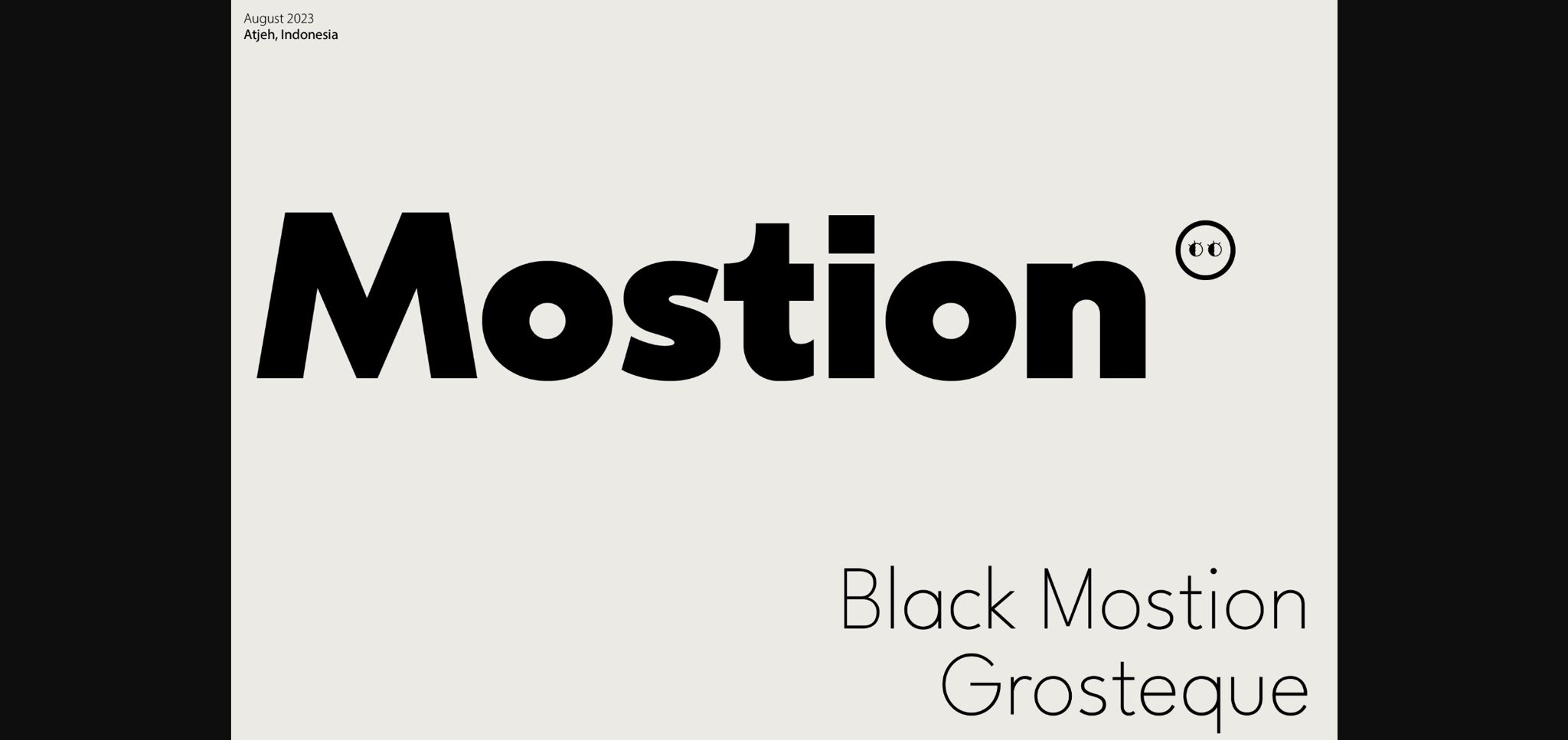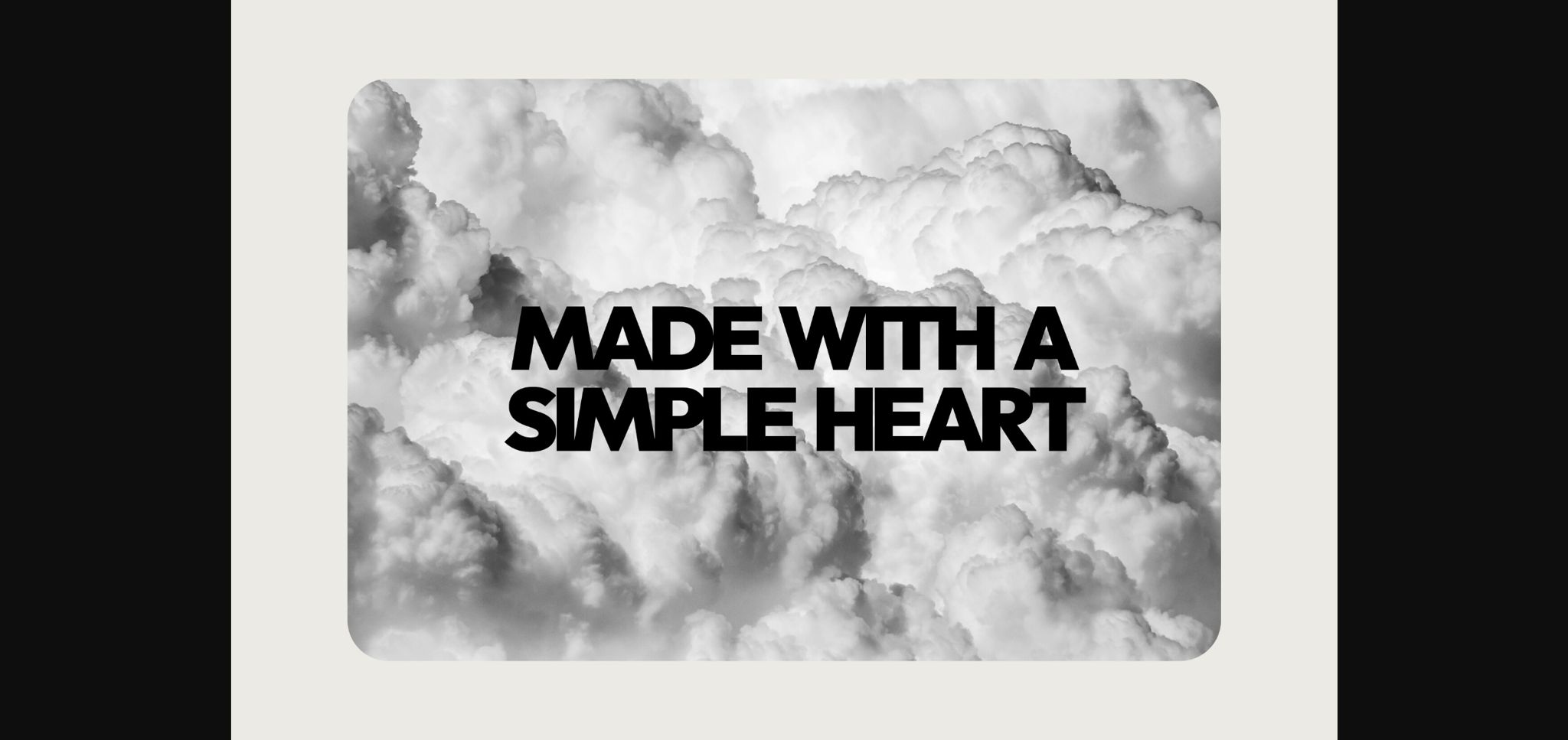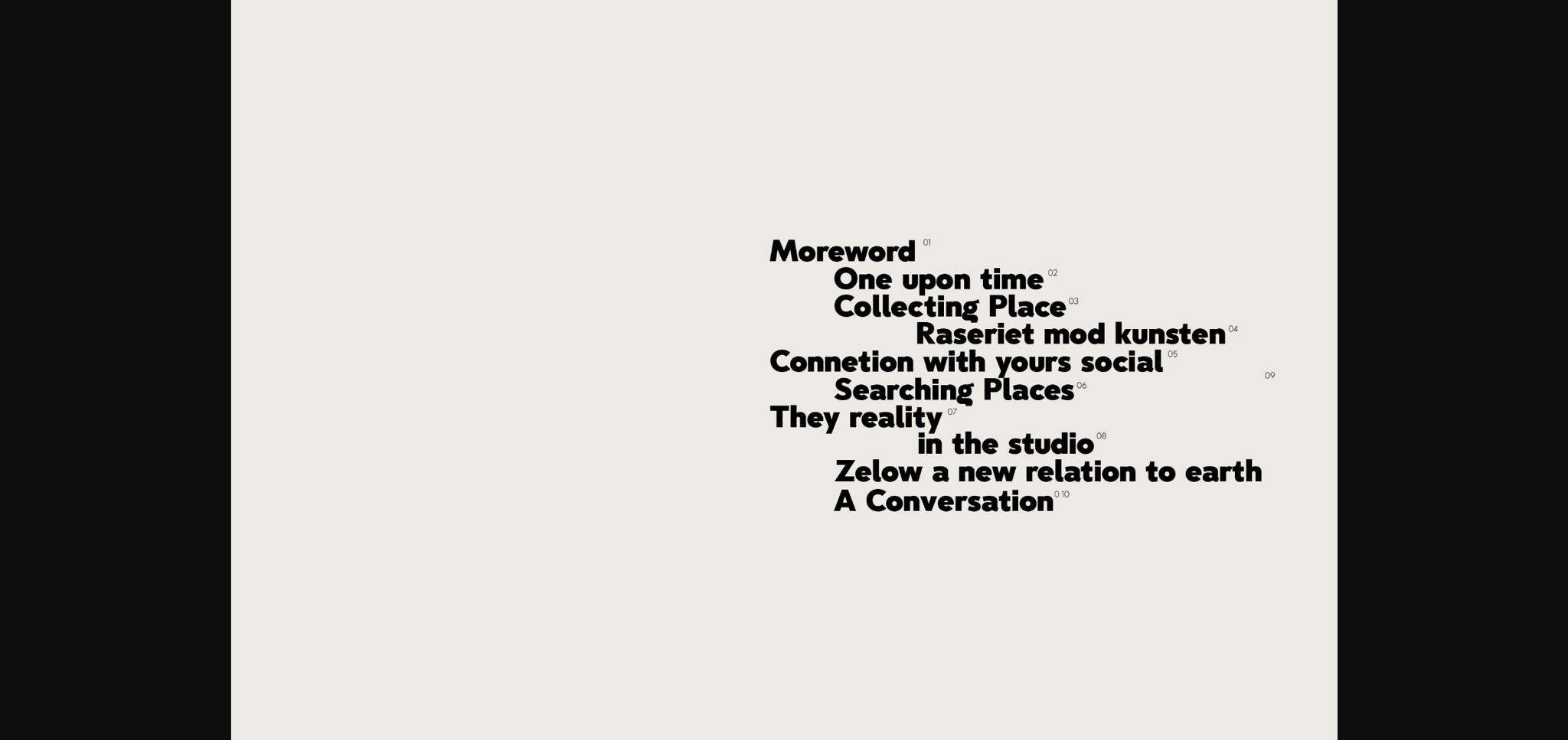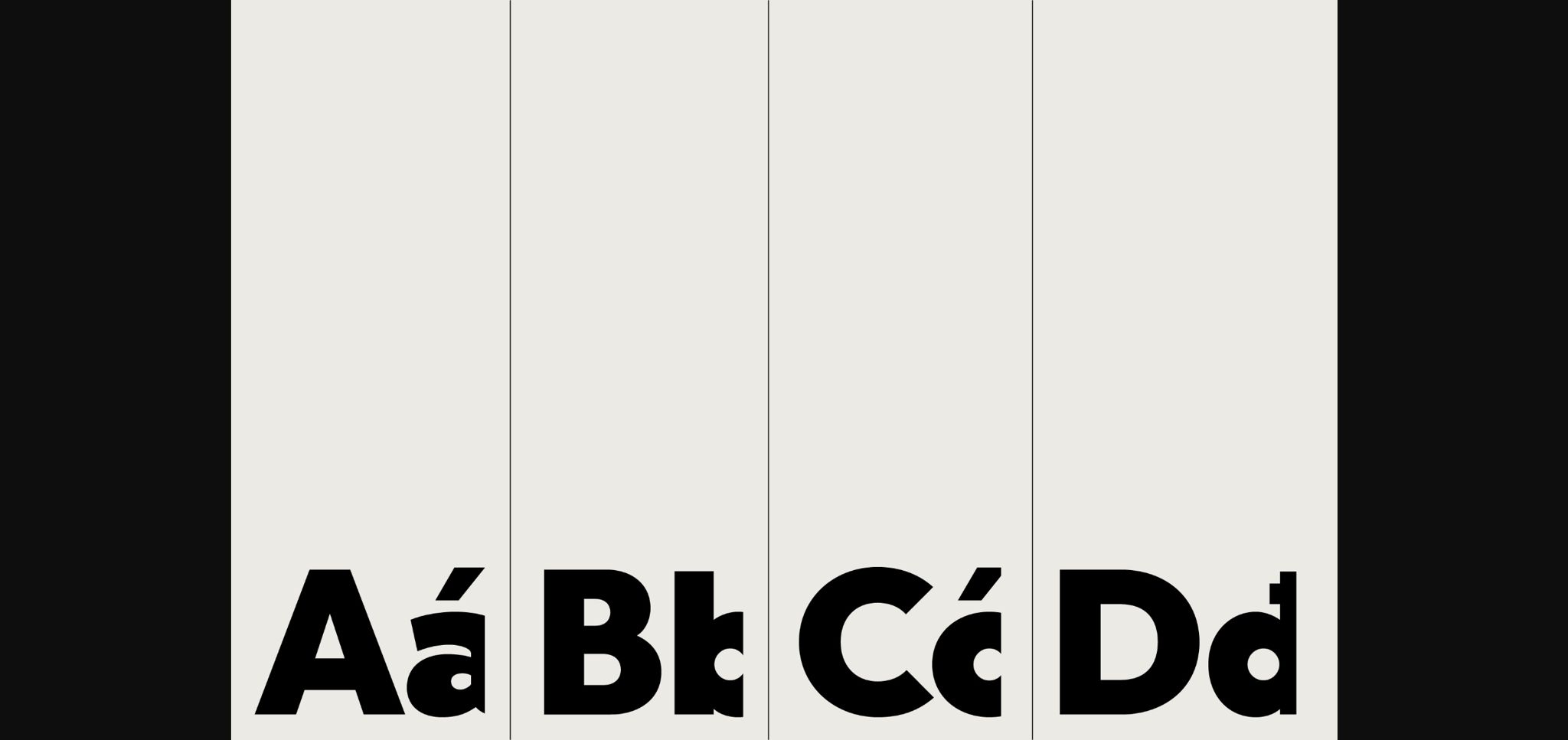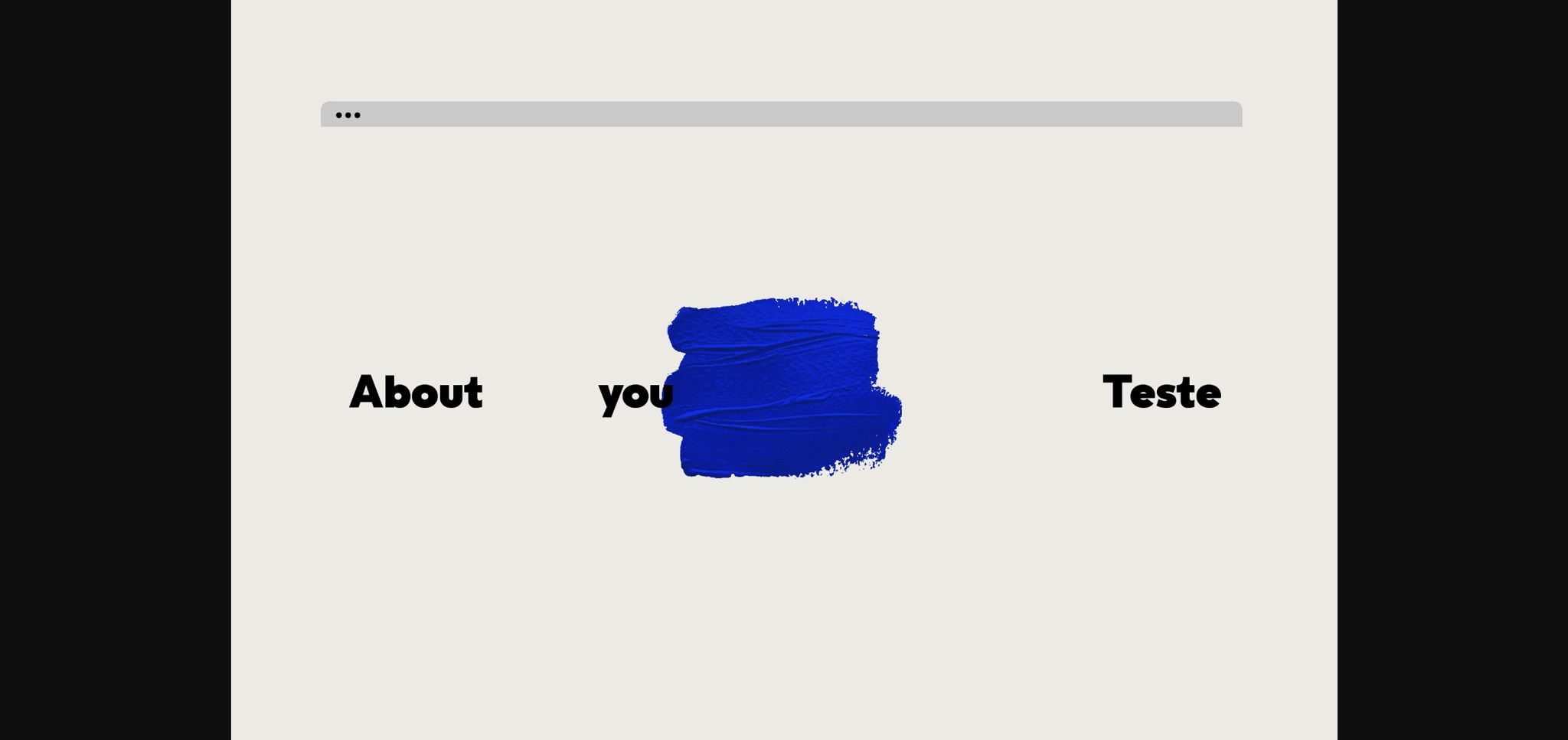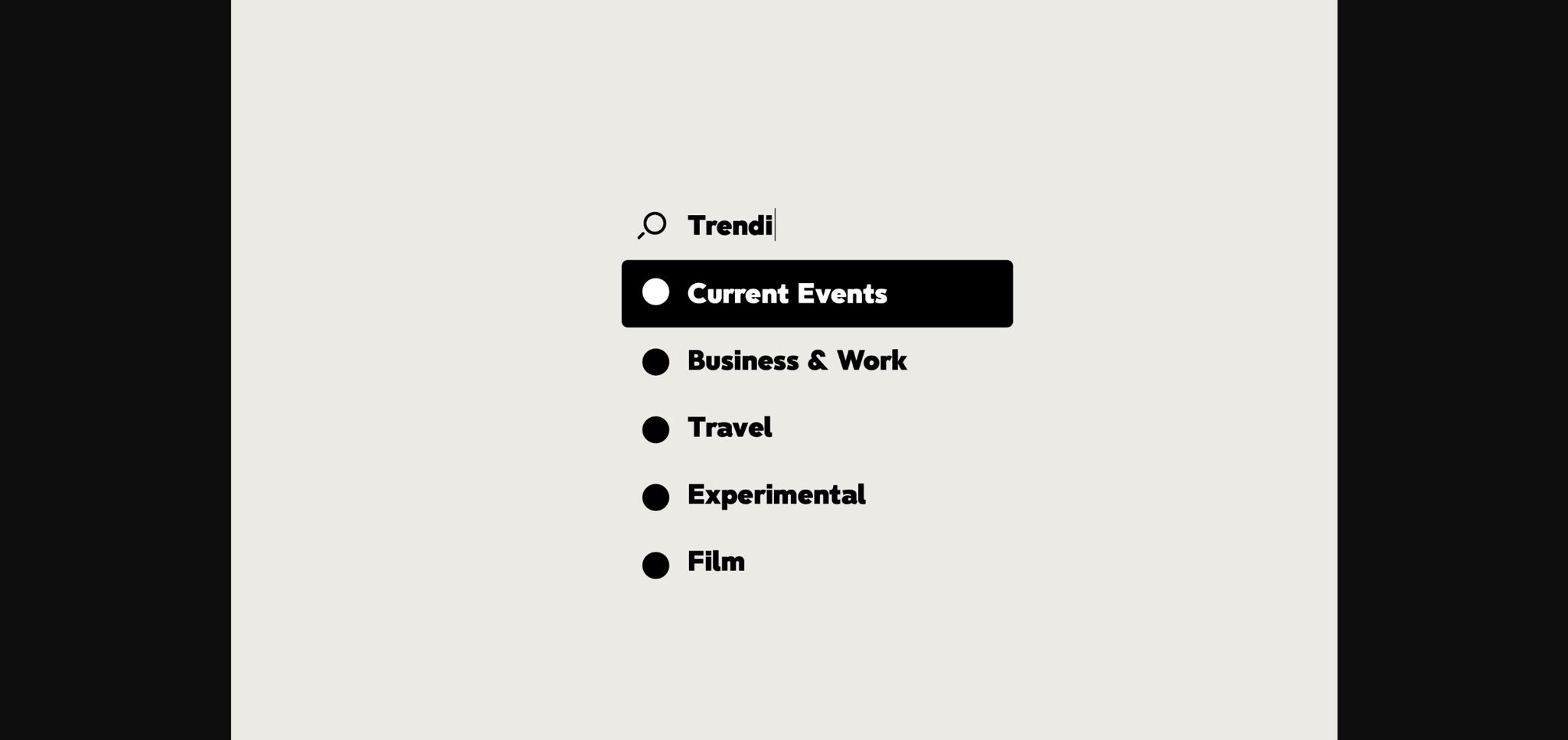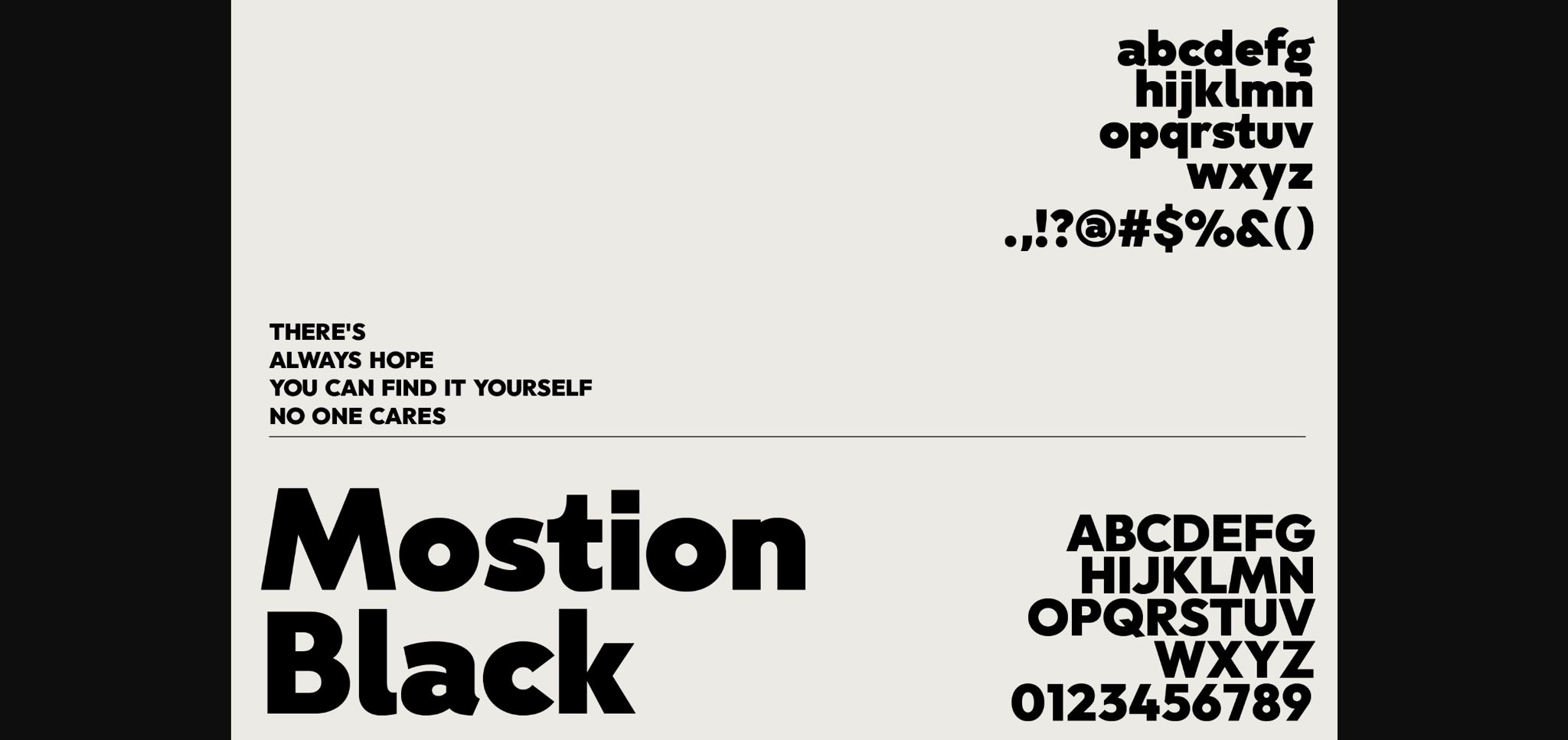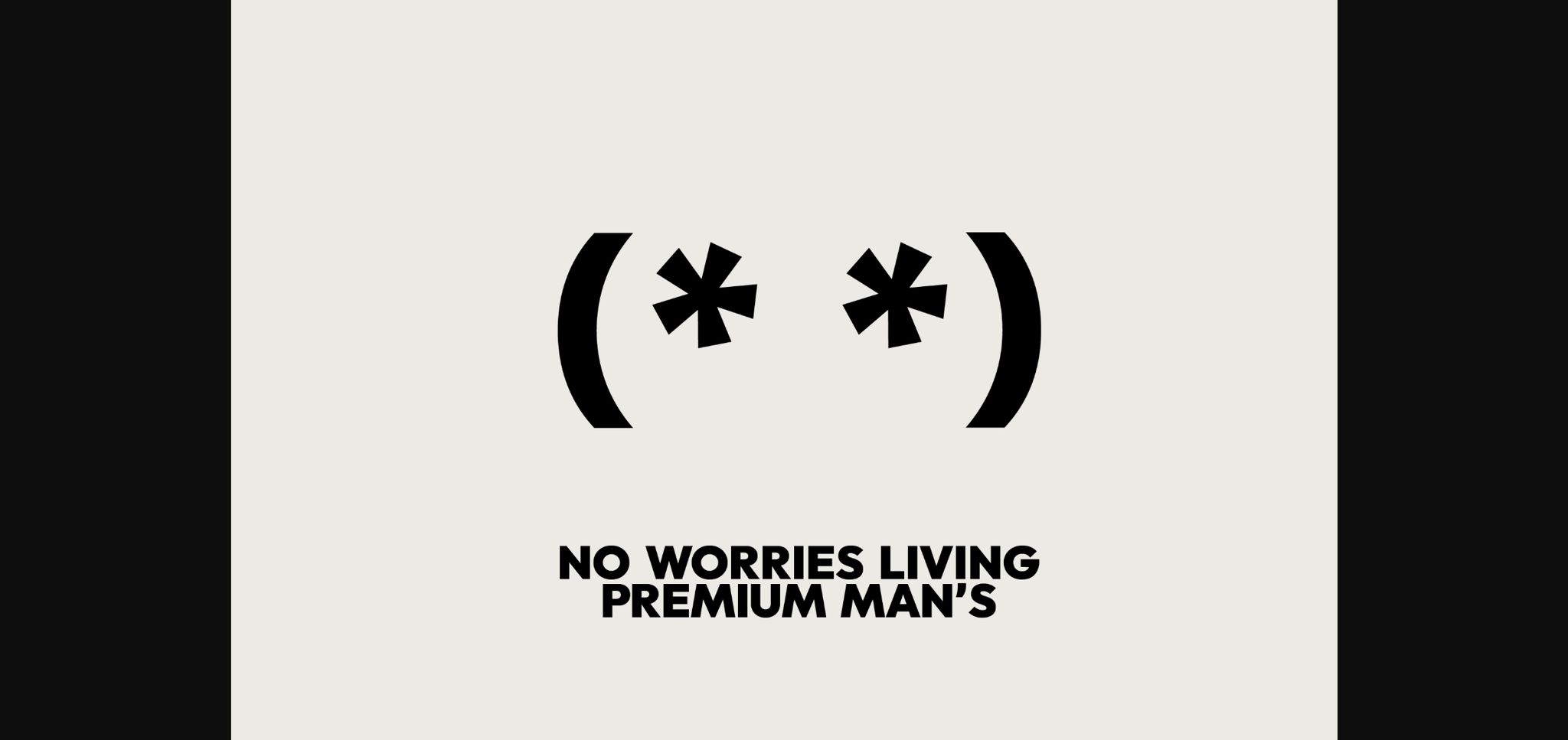
Mostion Font
About Mostion Font
Introducing Monstion, a fusion of sans and grotesque styles, both in bold weight, radiating an essence of simplicity and modernism. Crafted meticulously, this typeface embodies the purity of sans-serif aesthetics while embracing the boldness of grotesque forms. Its carefully refined x-height and expertly smoothed angles create a mesmerizing balance, where minimalistic design meets commanding boldness.